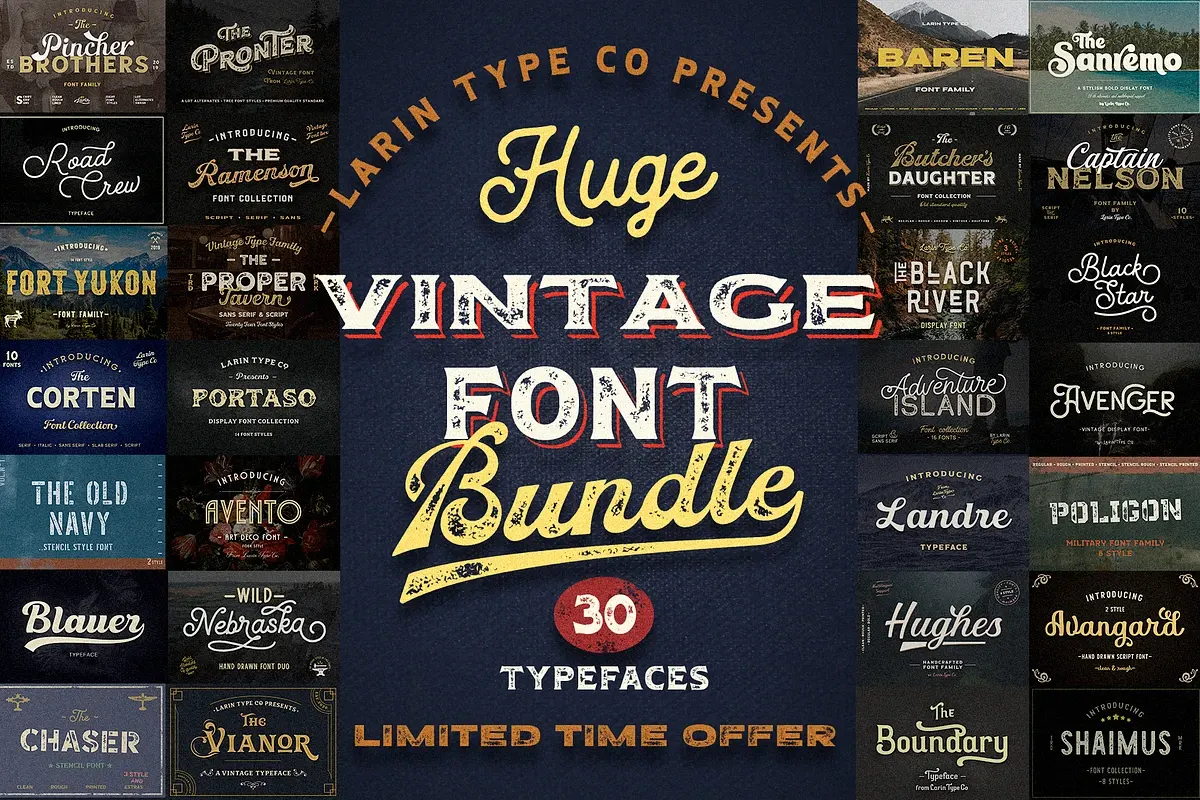
Huge Vintage Font Bundle Free Download
Huge Vintage Font Bundle Free Download is a comprehensive collection of retro-inspired typefaces that bring the timeless appeal of vintage design to your projects. With a wide range of styles, from bold serifs to decorative scripts, this bundle is perfect for logos, branding, posters, invitations, and any project that needs a nostalgic touch with a modern flair.
Whether you're crafting a retro brand identity, designing a classic-style publication, or creating eye-catching promotional materials, this font bundle gives you all the tools to bring vintage charm and personality to your typography. It’s a must-have for designers who appreciate the elegance of the past with a modern twist.